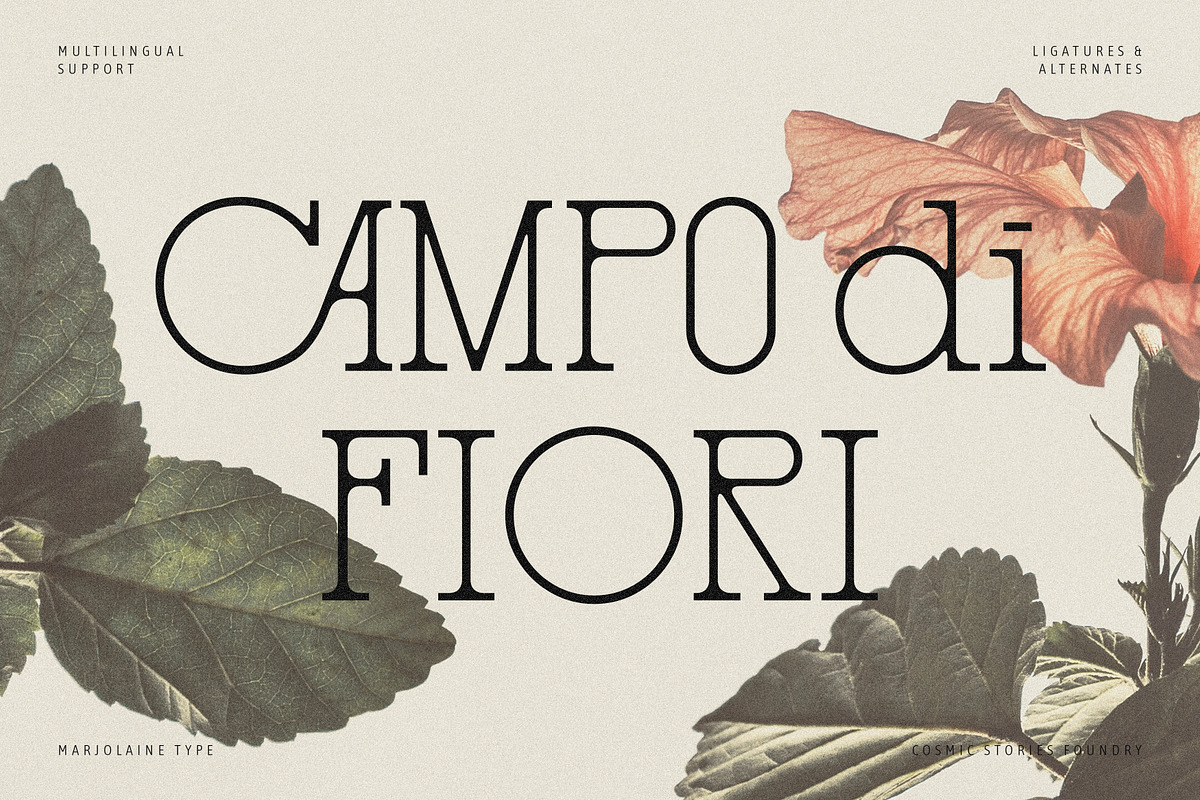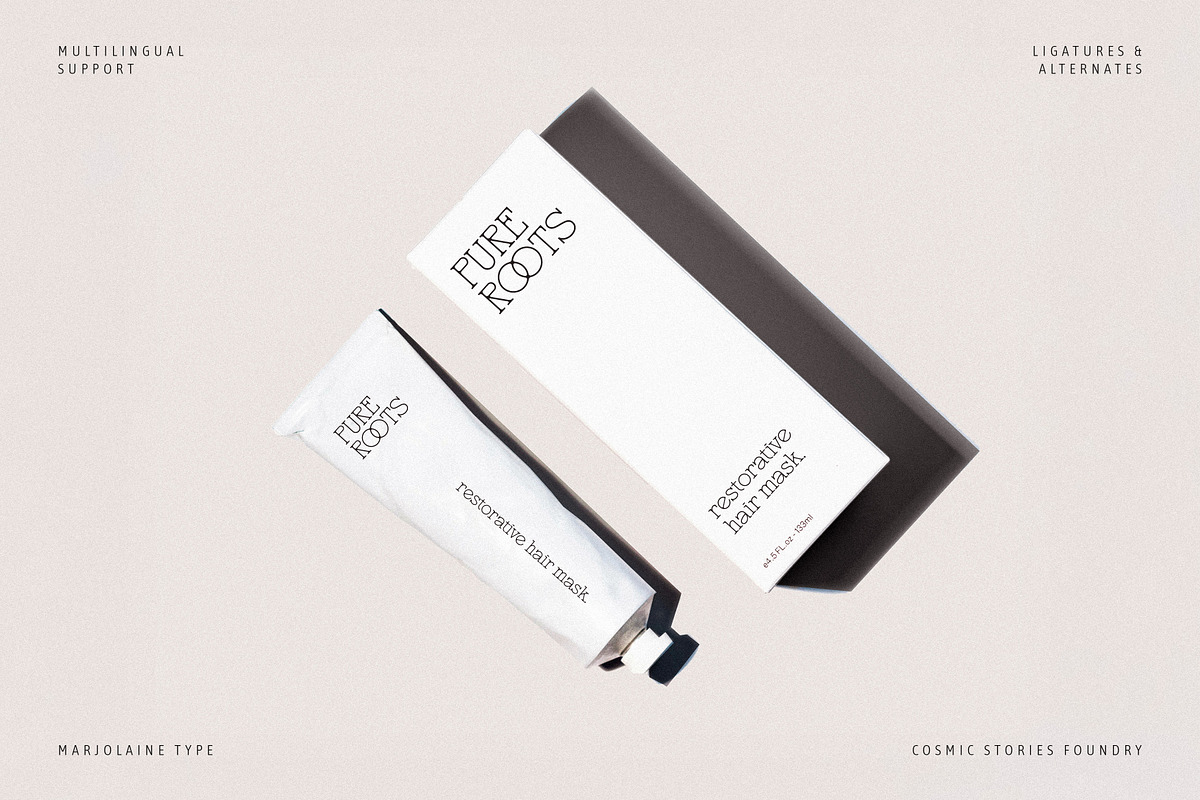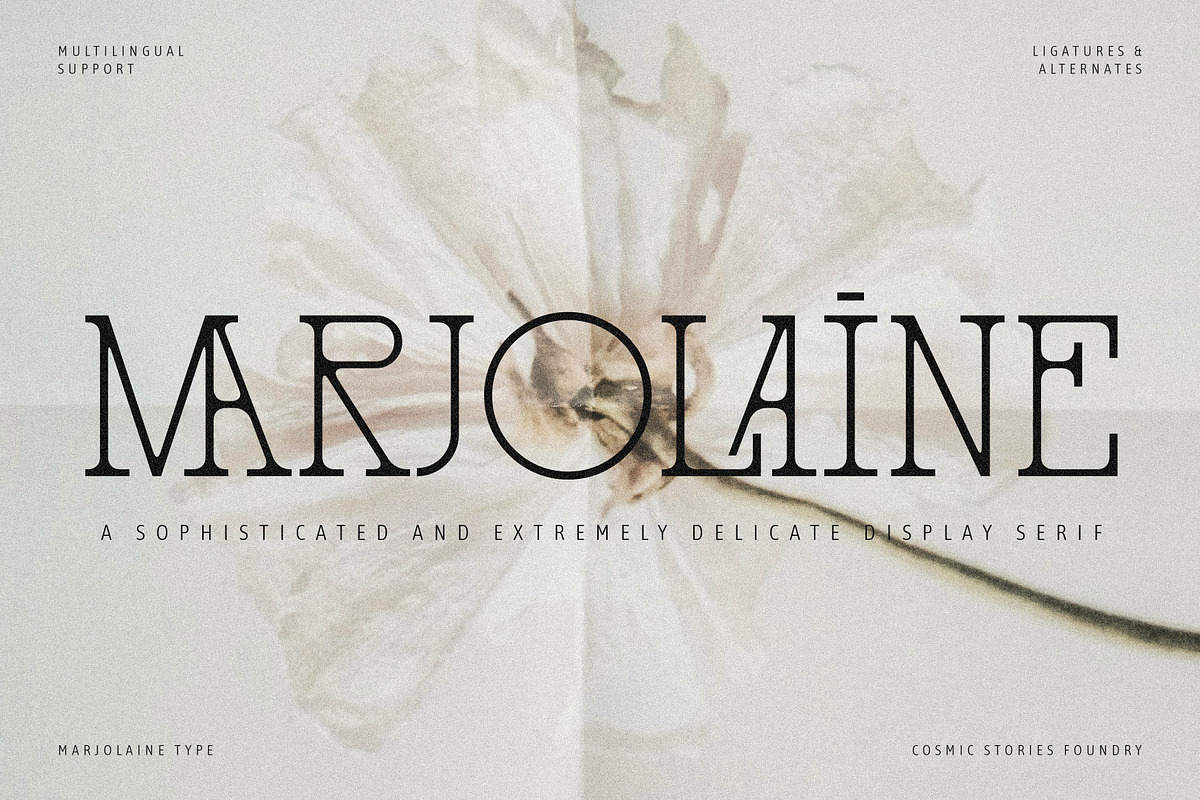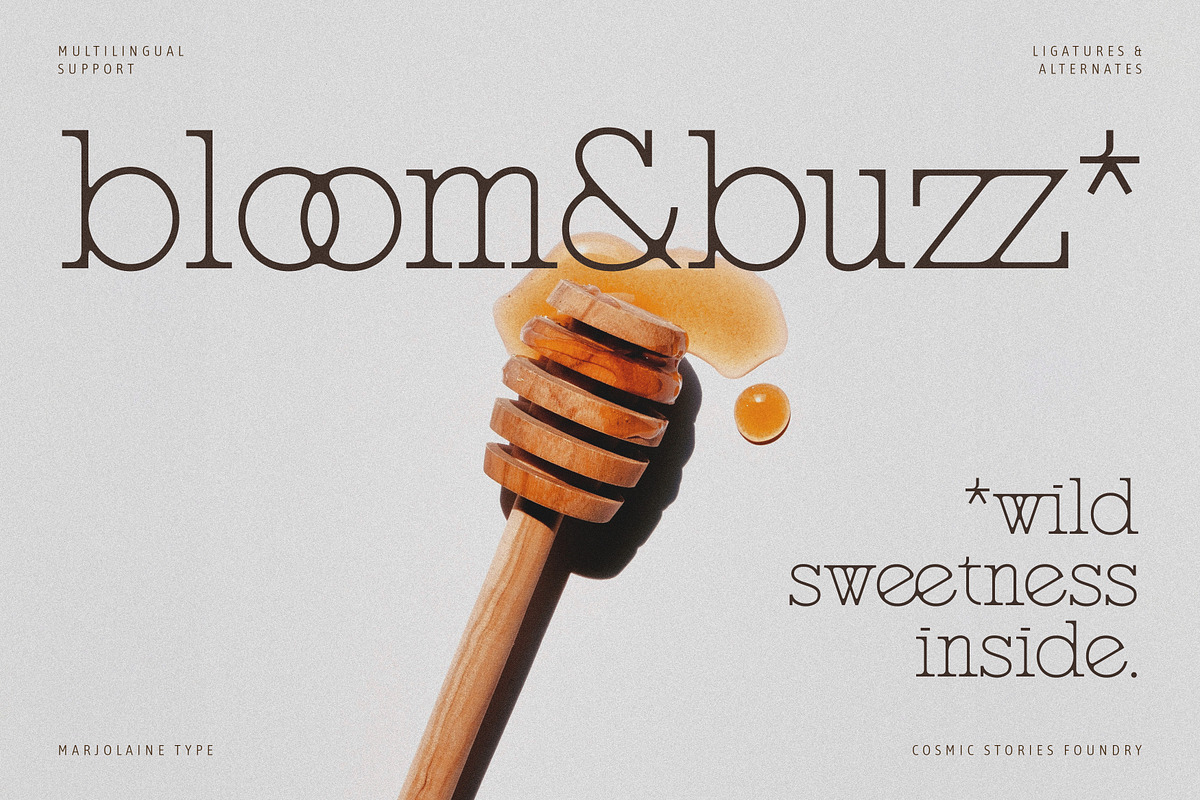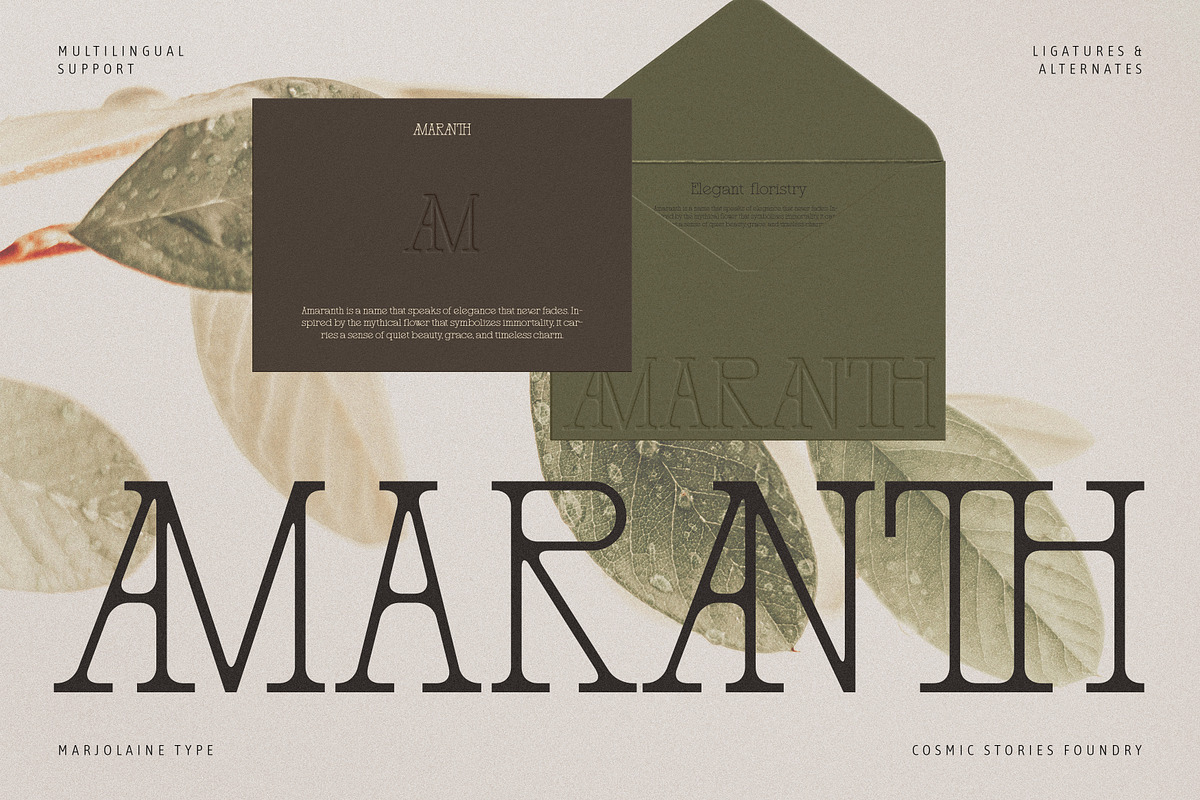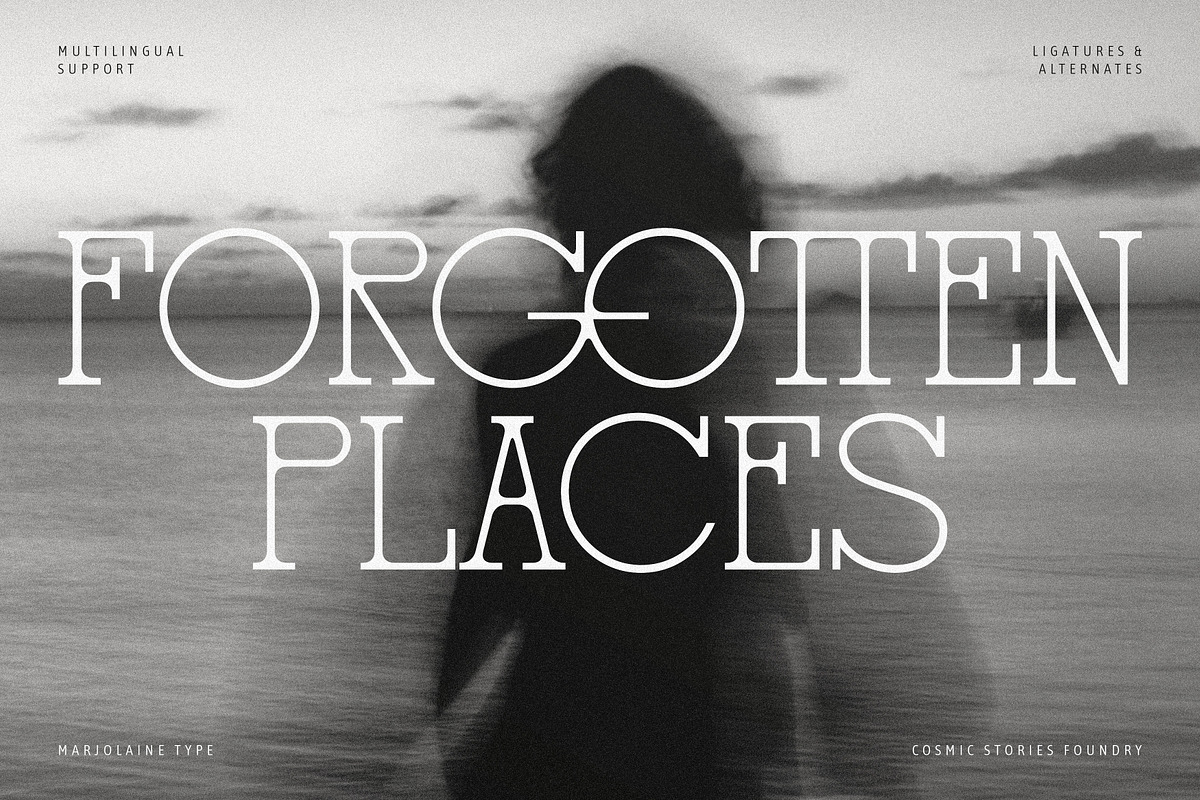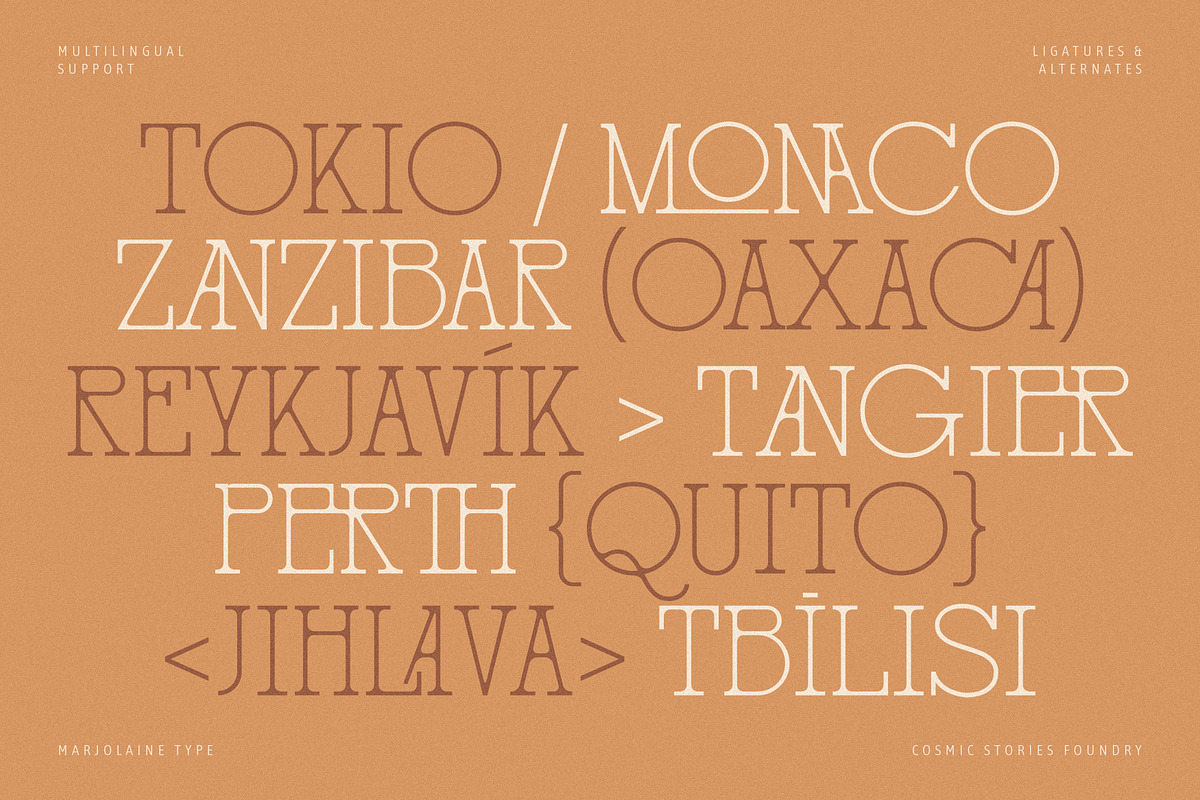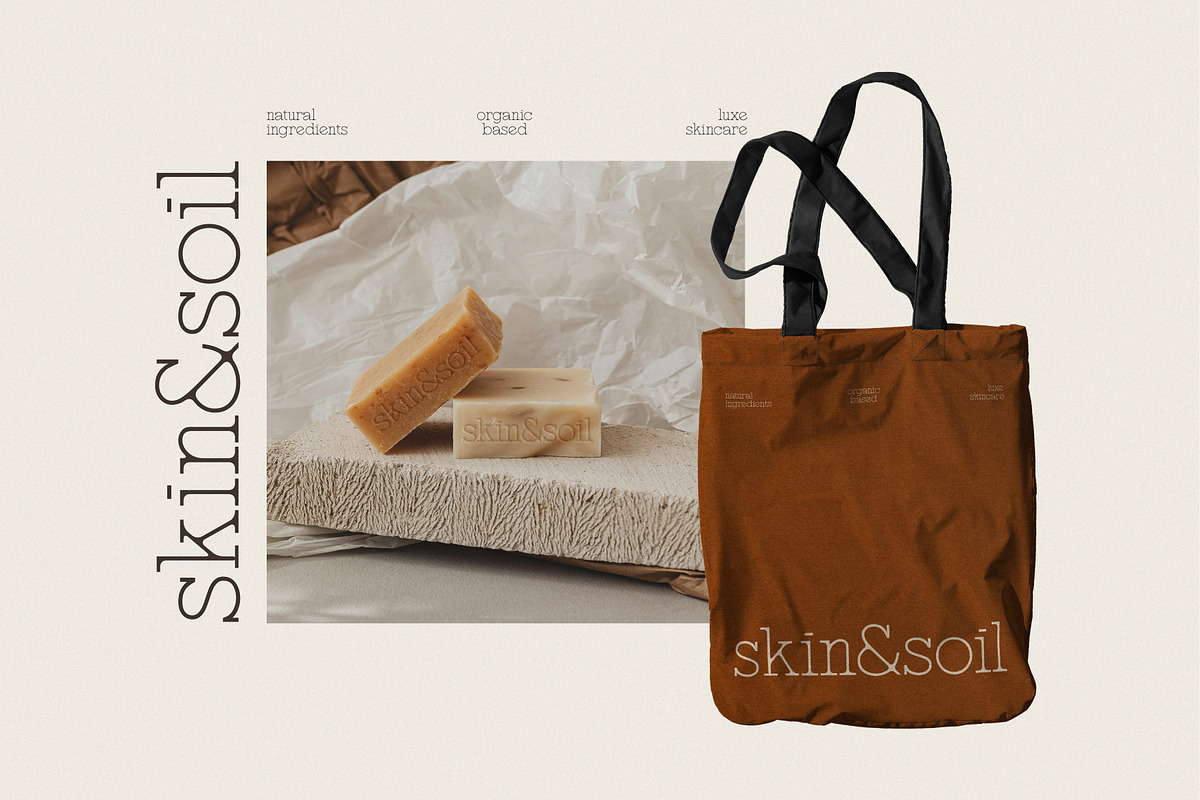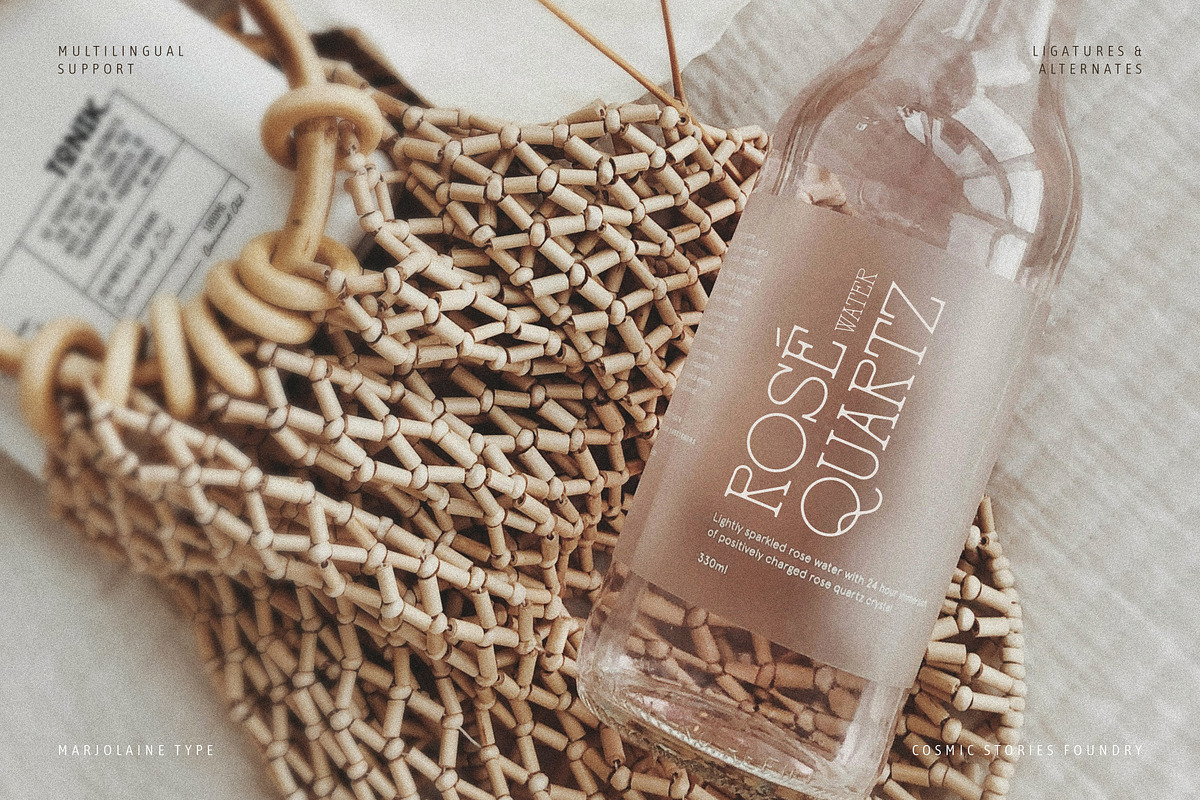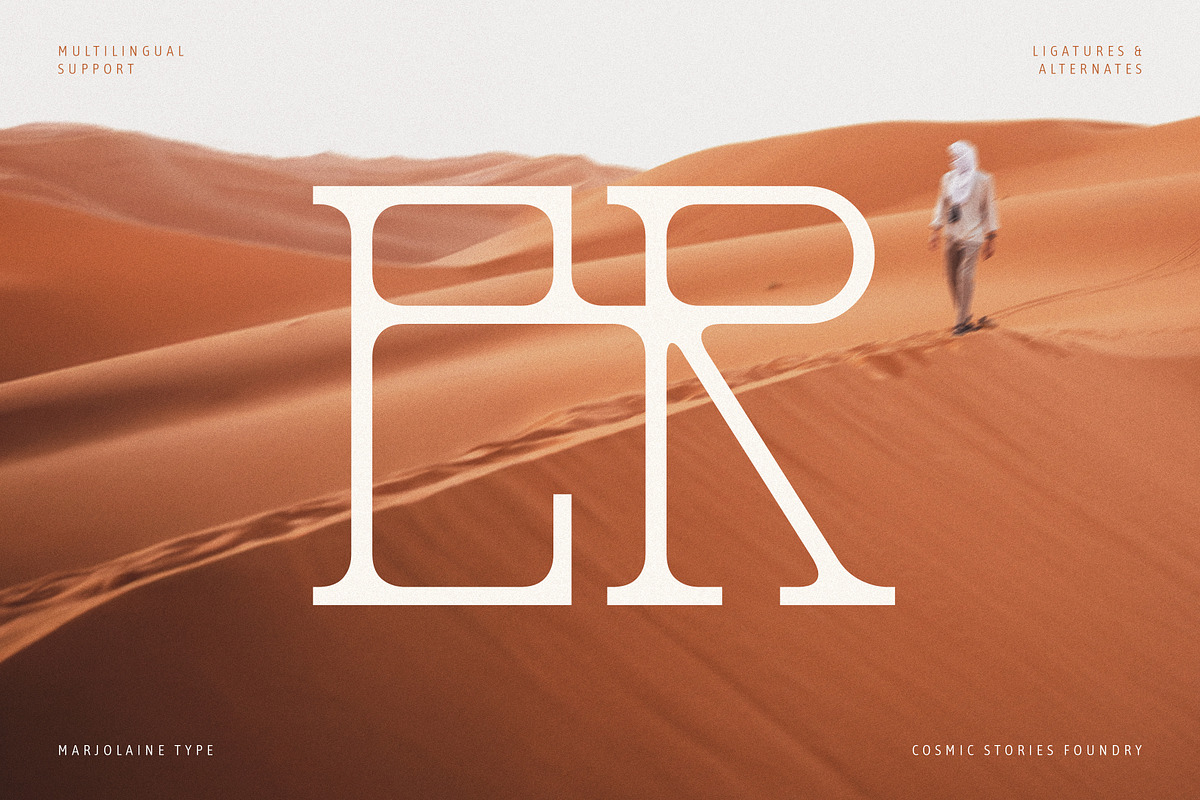
Marjolaine Type - A delicate Serif
Introducing Marjolaine, a graceful serif with a typewriter soul.
Marjolaine sits between a delicate slab and a typewriter-inspired style. With its elegant proportions, subtle slab characteristics, and a clean, slightly mechanical edge, Marjolaine offers a unique balance of sophistication and personality. This typeface brings character, charm, and just the right amount of attitude. Its elegant curves and subtle strength make it perfect for eye-catching logos, stylish headlines, and even longer text with personality.
With 58 exclusive ligatures, a handful of refined alternates, and extensive multilingual support (Western, Central, and Southeastern European languages — and more!), Marjolaine is designed to travel well and speak beautifully.
- 55+ Elegant Ligatures & Alternates
- Multilingual support (Western, Central & Eastern European languages)
Ideal for:
- Luxury branding
- Fashion editorials
- Minimalist packaging
- Modern web design
- High-end stationery